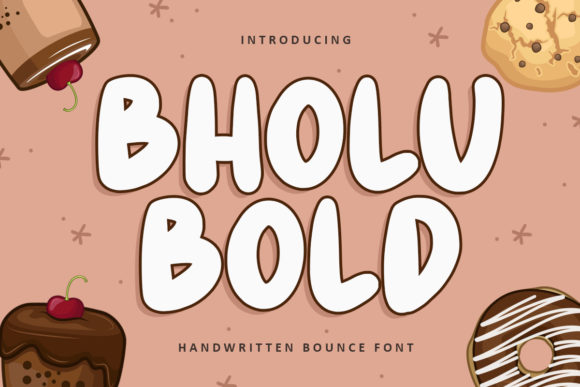
Introducing Bholu Bold Font: The Ultimate Display Font for Designers and Crafters
In the world of typography, a good font can make all the difference in the success of a design project. Whether you’re a seasoned designer or a crafty DIY enthusiast, having the right font can elevate your work from ordinary to extraordinary. That’s where Bholu Bold Font comes in – a cute and versatile display font that’s perfect for a wide range of applications. In this article, we’ll take a closer look at Bholu Bold and explore its features, benefits, and uses.
What is Bholu Bold Font?
Bholu Bold is a modern display font that’s designed to make a statement. This fantastic bold font is best suited for headlines of all sizes, as well as for blocks of text that have both maximum and minimum variations. Its unique and playful style makes it perfect for a variety of design projects, from digital media to print materials.
Key Features of Bholu Bold Font
- Bold and Eye-Catching: Bholu Bold is a bold font that’s designed to grab attention. Its thick lines and playful curves make it perfect for headlines, titles, and other display text.
- Versatile: Bholu Bold is a versatile font that can be used for a wide range of applications, including web design, print materials, moving images, and more.
- Easy to Read: Despite its bold style, Bholu Bold is easy to read, even at small sizes. This makes it perfect for blocks of text that need to be legible.
- High-Quality: Bholu Bold is a high-quality font that’s designed to look great on any device or medium.
Benefits of Using Bholu Bold Font
So why should you use Bholu Bold Font in your design projects? Here are just a few benefits:
- Adds Visual Interest: Bholu Bold adds a touch of personality and visual interest to your designs, making them stand out from the crowd.
- Perfect for Headlines: Bholu Bold is specifically designed for headlines and display text, making it perfect for grabbing attention and conveying important information.
- Easy to Pair: Bholu Bold pairs well with a wide range of fonts, making it easy to create a cohesive look and feel for your designs.
- Time-Saving: With Bholu Bold, you can create professional-looking designs in no time. Its bold style and easy-to-read design make it perfect for quick and easy design projects.
Use Cases for Bholu Bold Font
Bholu Bold is a versatile font that can be used in a wide range of design projects, including:
- Web Design: Use Bholu Bold to create eye-catching headlines, titles, and other display text for your website.
- Print Materials: Bholu Bold is perfect for print materials like brochures, flyers, posters, and more.
- Social Media: Use Bholu Bold to create attention-grabbing social media graphics, posts, and ads.
- Moving Images: Bholu Bold is a great choice for video titles, subtitles, and other display text.
In conclusion, Bholu Bold Font is a fantastic display font that’s perfect for designers and crafters looking to add a touch of personality and visual interest to their work. Its bold style, versatility, and ease of use make it a great choice for a wide range of design projects, from web design to print materials and more. Whether you’re a seasoned designer or just starting out, Bholu Bold is definitely worth checking out.